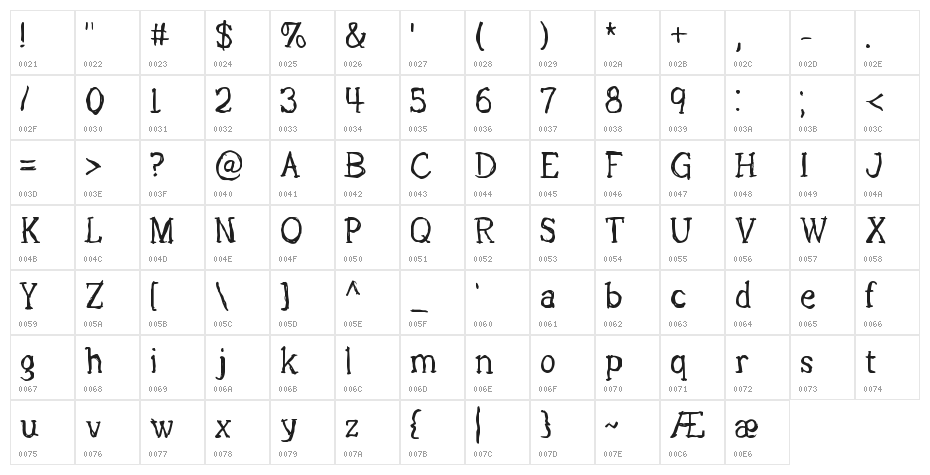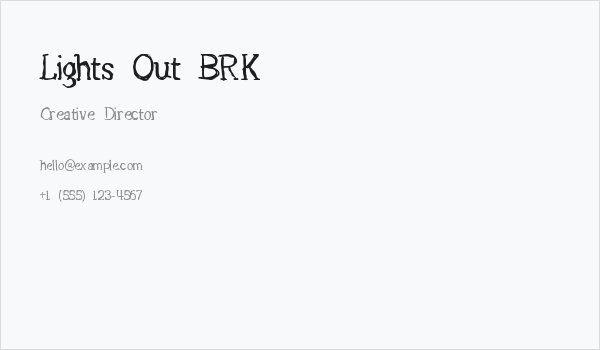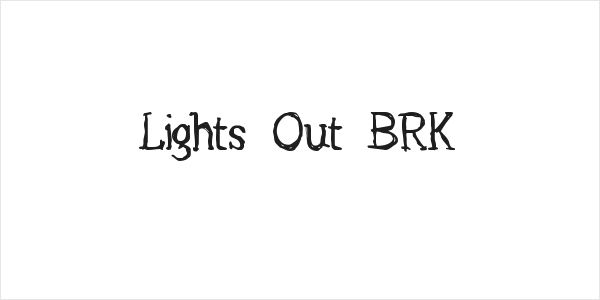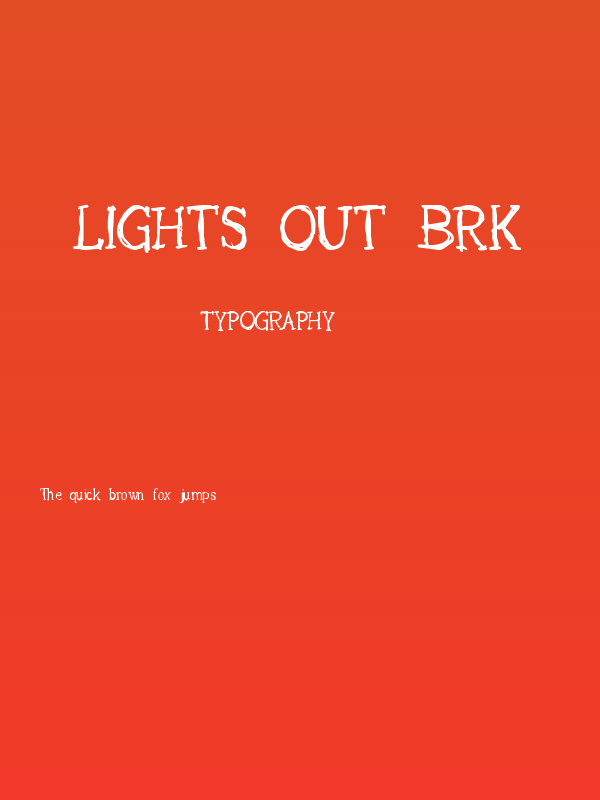
Lights Out BRK Font
Lights Out BRK Description
This font features a rugged, hand-drawn style with uneven strokes and a slightly distressed appearance. The characters have a playful yet edgy look, with irregularities that add a sense of movement and energy. The uppercase and lowercase letters maintain a consistent style, with bold, thick lines that create a strong visual impact. The numerals and special characters follow the same design ethos, ensuring a cohesive appearance across all glyphs. This font is ideal for projects that require a touch of personality and creativity, making it perfect for artistic and unconventional designs.
Proposed ProjectsIdeal for posters, album covers, artistic projects, and creative branding.